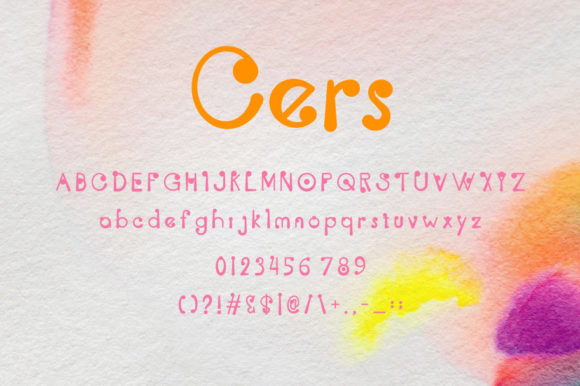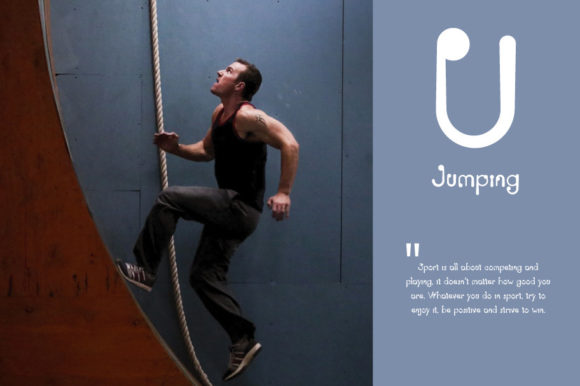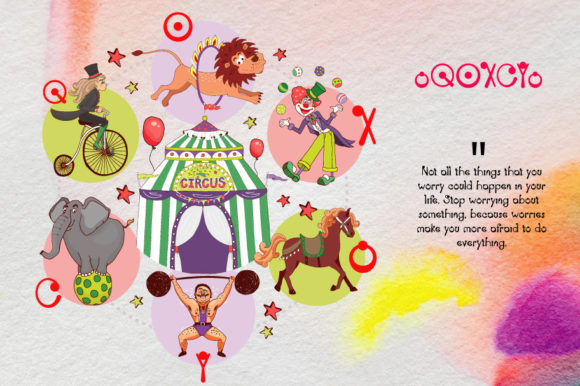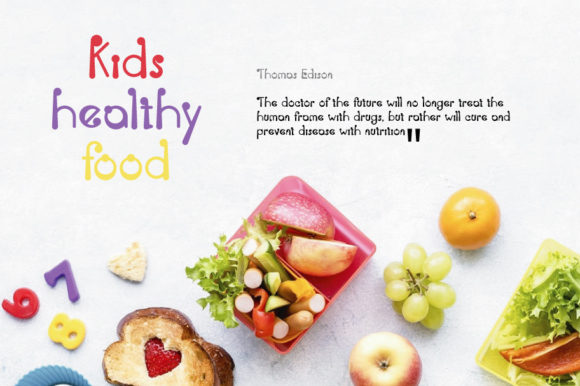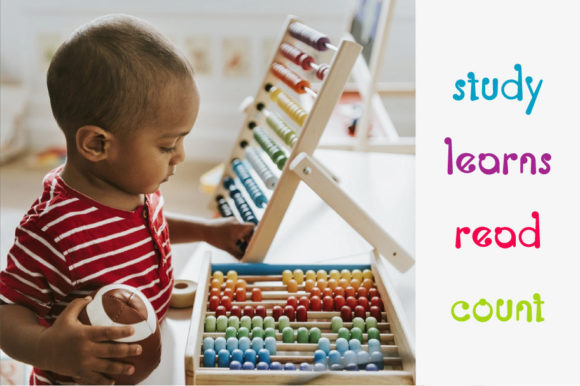
Cers Font: The Playful Display Font to Elevate Your Designs
Are you tired of using the same old fonts in your designs? Look no further than Cers Font, a playful display font that’s sure to put a smile on your projects and inspire you to create something fun and memorable. In this article, we’ll dive into the features and benefits of Cers Font, and explore how it can elevate your designs to the next level.
What is Cers Font?
Cers Font is a modern, playful display font designed to add a touch of whimsy to your projects. Its unique and quirky style makes it perfect for a wide range of applications, from headings and flyers to greeting cards and product packaging. With Cers Font, you can add a dash of personality to your designs and make them stand out from the crowd.
Key Features of Cers Font
- Playful and Fun: Cers Font is designed to be playful and fun, making it perfect for designs that require a lighthearted touch.
- Highly Versatile: Cers Font can be used for a wide range of applications, including headings, flyers, greeting cards, product packaging, book covers, printed quotes, logotypes, apparel designs, album covers, and more.
- Easily Readable: Despite its playful style, Cers Font is easily readable, making it perfect for designs that require a clear and concise message.
- Unique and Quirky: Cers Font has a unique and quirky style that sets it apart from other fonts, making it perfect for designers who want to add a touch of personality to their designs.
Benefits of Using Cers Font
So why should you use Cers Font in your designs? Here are just a few benefits:
- Adds Personality: Cers Font adds a touch of personality to your designs, making them more engaging and memorable.
- Versatile: Cers Font can be used for a wide range of applications, making it a great addition to any designer’s toolkit.
- Increases Creativity: Cers Font’s playful style can help inspire creativity and encourage you to think outside the box.
- Easy to Use: Cers Font is easy to use and can be easily integrated into your designs, making it perfect for designers of all skill levels.
Use Cases for Cers Font
Cers Font is perfect for a wide range of design applications, including:
- Headings and Titles: Cers Font is perfect for headings and titles, adding a touch of personality and whimsy to your designs.
- Flyers and Brochures: Cers Font is great for flyers and brochures, making your marketing materials stand out from the crowd.
- Greeting Cards: Cers Font is perfect for greeting cards, adding a touch of personality and whimsy to your designs.
- Product Packaging: Cers Font is great for product packaging, making your products stand out on store shelves.
- Book Covers: Cers Font is perfect for book covers, adding a touch of personality and whimsy to your designs.
Tips for Using Cers Font
Here are a few tips for using Cers Font in your designs:
- Experiment with Different Sizes: Cers Font looks great in a variety of sizes, so experiment with different sizes to find the one that works best for your design.
- Pair with Other Fonts: Cers Font pairs well with other fonts, so try pairing it with a sans-serif font for a contrasting look.
- Use for Headings: Cers Font is perfect for headings, so use it to add a touch of personality to your designs.
Cers Font is a playful display font that’s perfect for designers who want to add a touch of personality to their designs. With its unique and quirky style, Cers Font is sure to put a smile on your projects and inspire you to create something fun and memorable. Whether you’re designing headings, flyers, greeting cards, or product packaging, Cers Font is a great choice. So why not give it a try and see how it can elevate your designs to the next level?